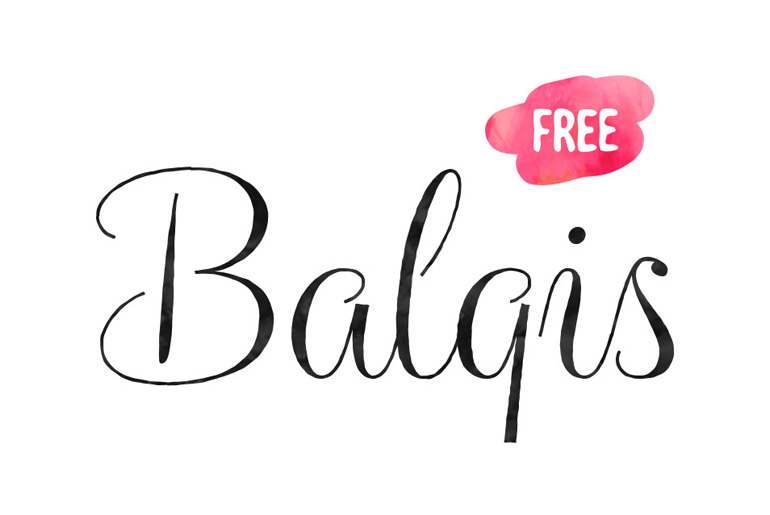
Balqis is a ladylike striped-rough calligraphy font created by Artimasa Studio . It presents off-the-cuff and natural feeling. It is readable as a script typeface. You can use it for logos, designs, invitations, greeting card designs and so on. Balqis Free Font available in OTF and TTF format and can be downloaded for free.